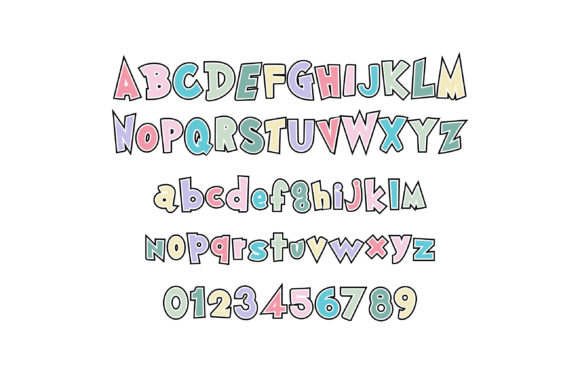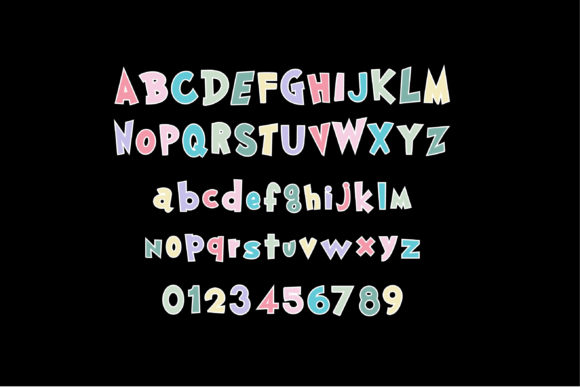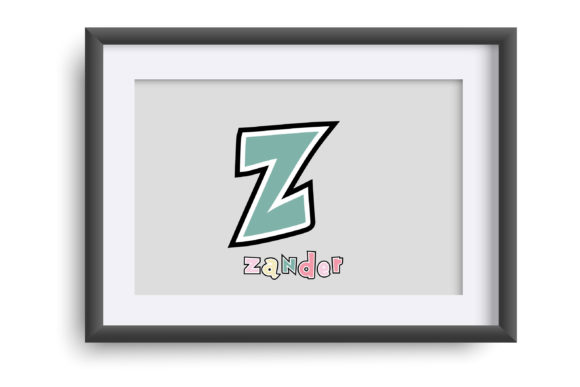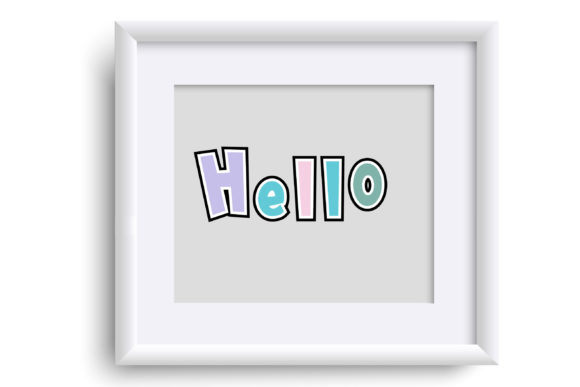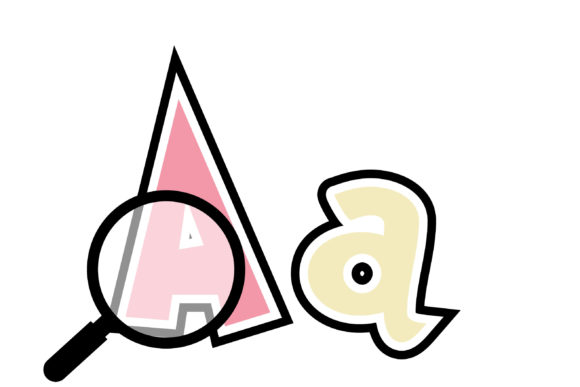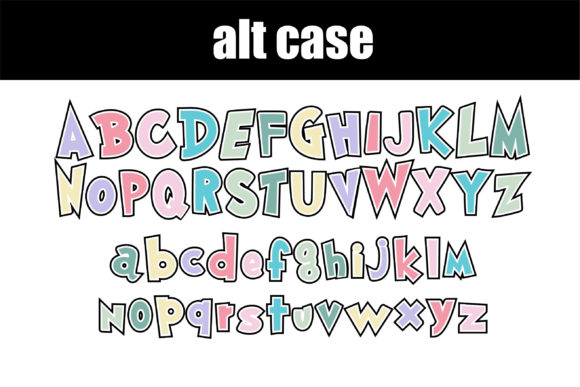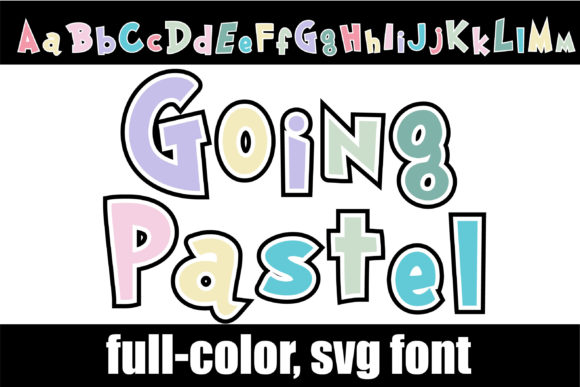
Introducing Going Pastel Font: Add a Touch of Whimsy to Your Designs
Are you looking for a font that can add a playful and authentic touch to your designs? Look no further than the Going Pastel Font! This full-color font features pastel lettering in a whimsical, child-like style that’s perfect for children’s activities, school projects, and more. In this article, we’ll take a closer look at the Going Pastel Font and explore its features, benefits, and uses.
What is Going Pastel Font?
Going Pastel is a unique and eye-catching font that embodies playfulness and authenticity. Its chunky lettered design makes it perfect for adding a touch of whimsy to your designs. Whether you’re creating a children’s activity book, a school project, or a craft project, this font is sure to make your designs come alive!
Key Features of Going Pastel Font
- Full-color font: Going Pastel is a color font (Opentype-SVG) that features beautiful pastel colors.
- Whimsical design: The font has a child-like, whimsical design that’s perfect for kids’ projects.
Benefits of Using Going Pastel Font
So, why should you choose Going Pastel Font for your designs? Here are just a few benefits:
- Adds a playful touch: The font’s whimsical design adds a playful touch to your designs, making them more engaging and fun.
- Perfect for kids’ projects: The font’s child-like design makes it perfect for kids’ projects, such as activity books, coloring books, and school projects.